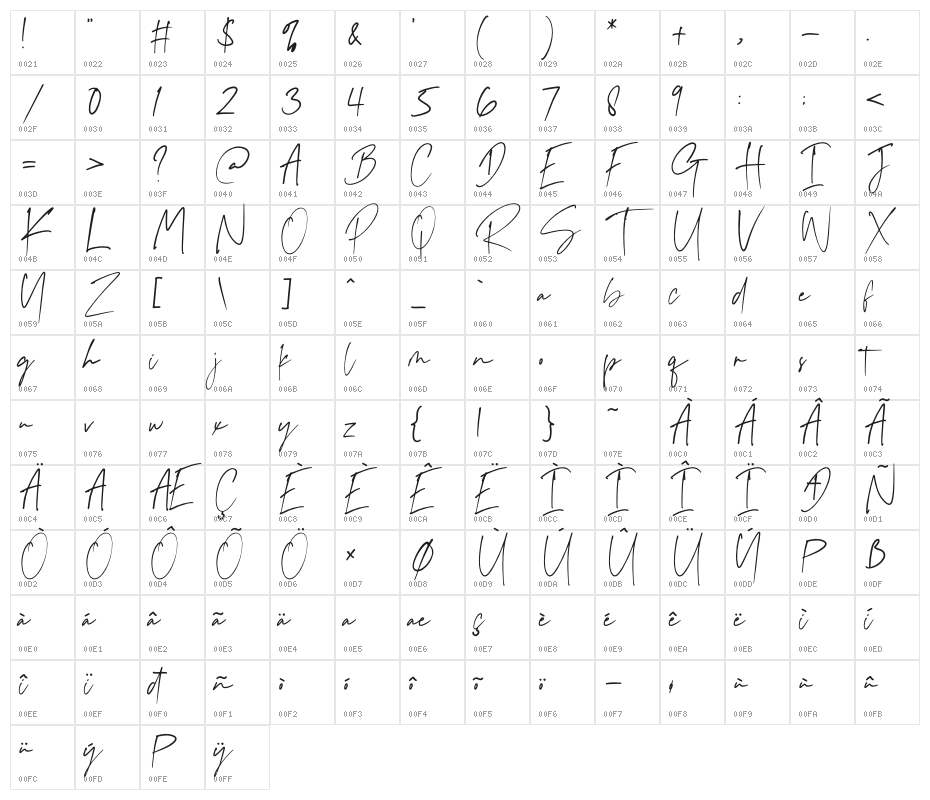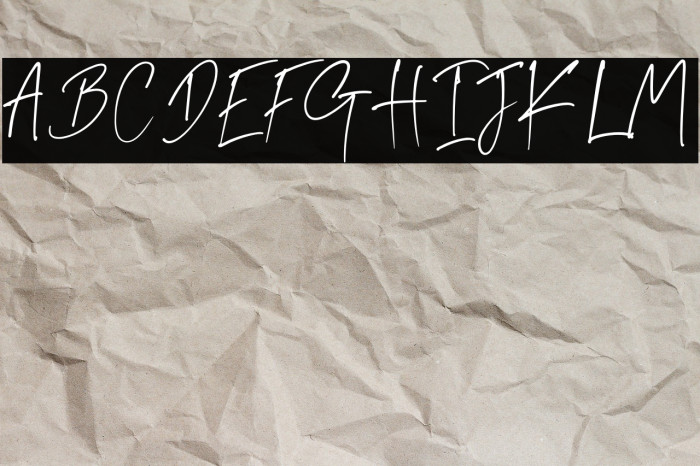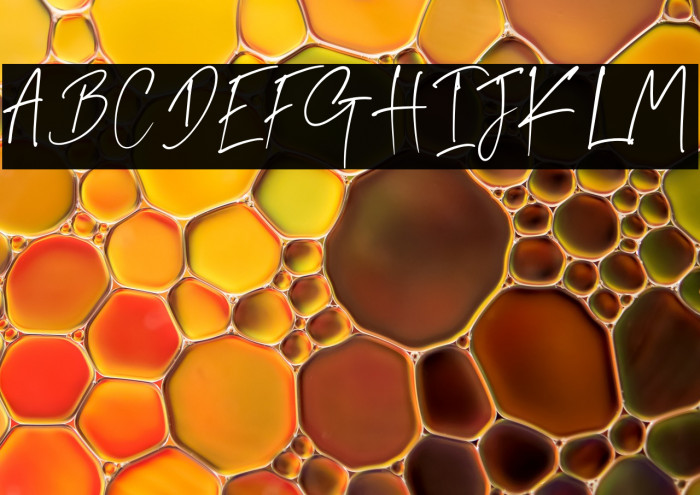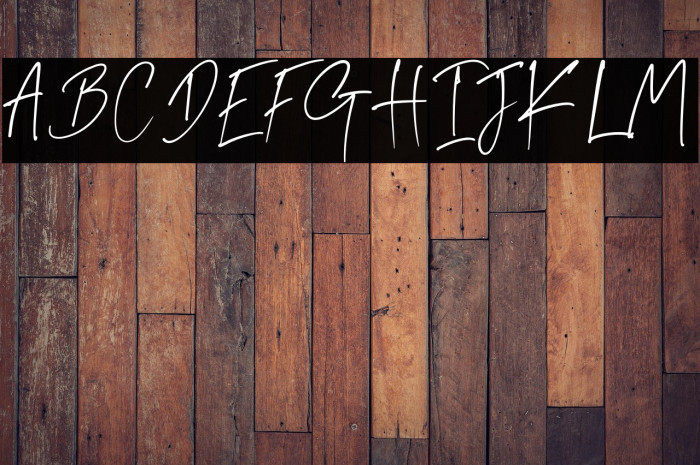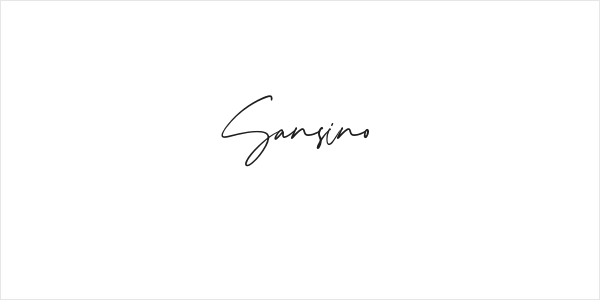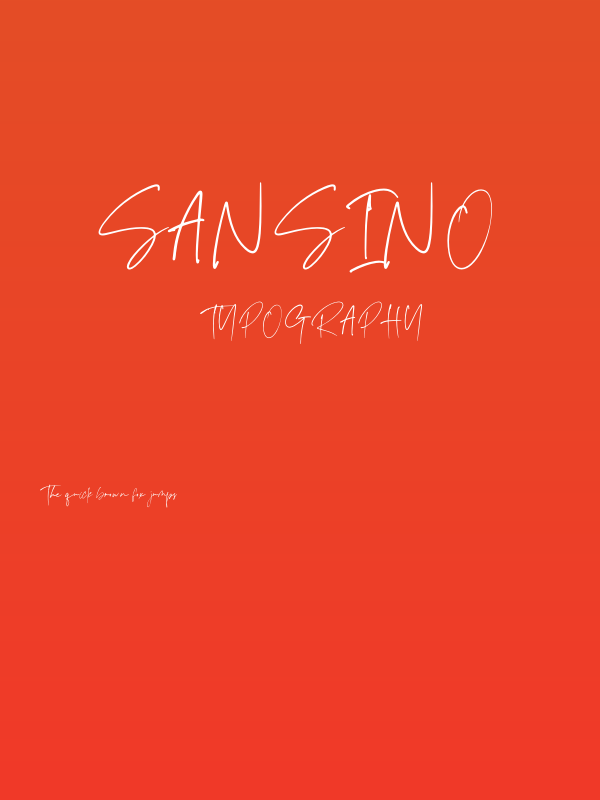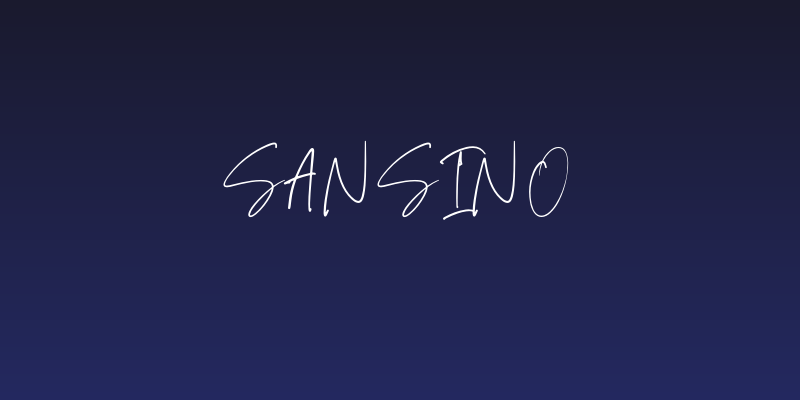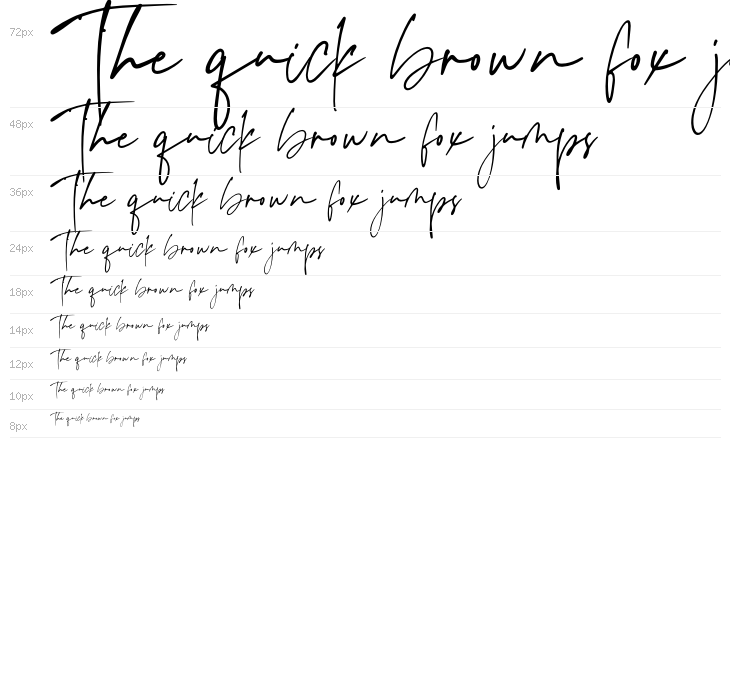
Sansino Font
Sansino Description
This font features a dynamic and expressive handwritten style, characterized by its fluid and natural strokes. The letters are slightly slanted, giving a sense of movement and energy. The uppercase and lowercase letters are well-balanced, with a consistent flow that mimics natural handwriting. The numbers and special characters maintain the same lively style, ensuring a cohesive look across all text elements. The font's organic feel makes it suitable for projects that require a personal touch, such as invitations, greeting cards, or branding materials that aim to convey warmth and authenticity.
| Proposed Projects | Ideal for invitations, greeting cards, personal branding, and creative projects requiring a handwritten feel. |